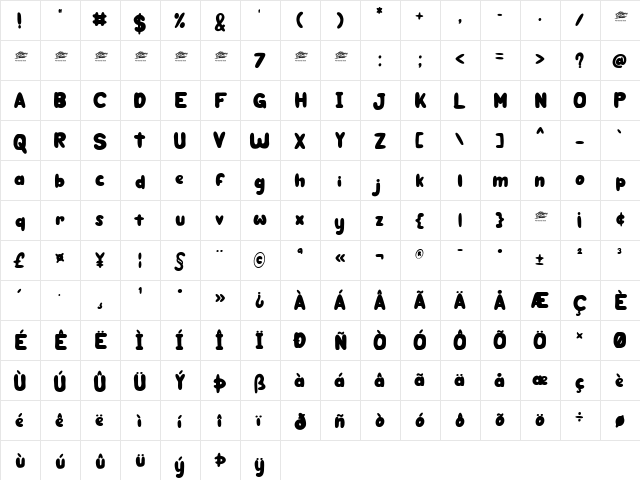
Ginger Biscuit - Personal Use Regular
Design Context for Ginger Biscuit - Personal Use Typeface
Ginger Biscuit - Personal Use is a composed and adaptable typeface that performs quietly and consistently across a wide range of design contexts.